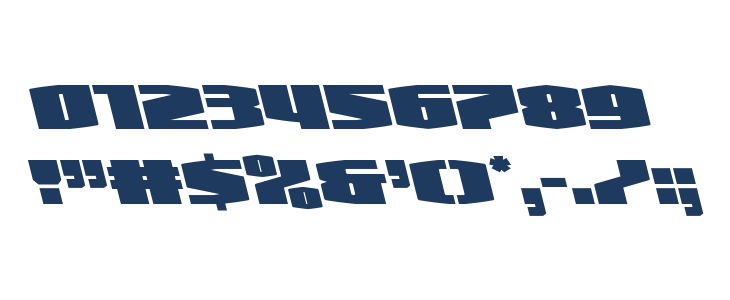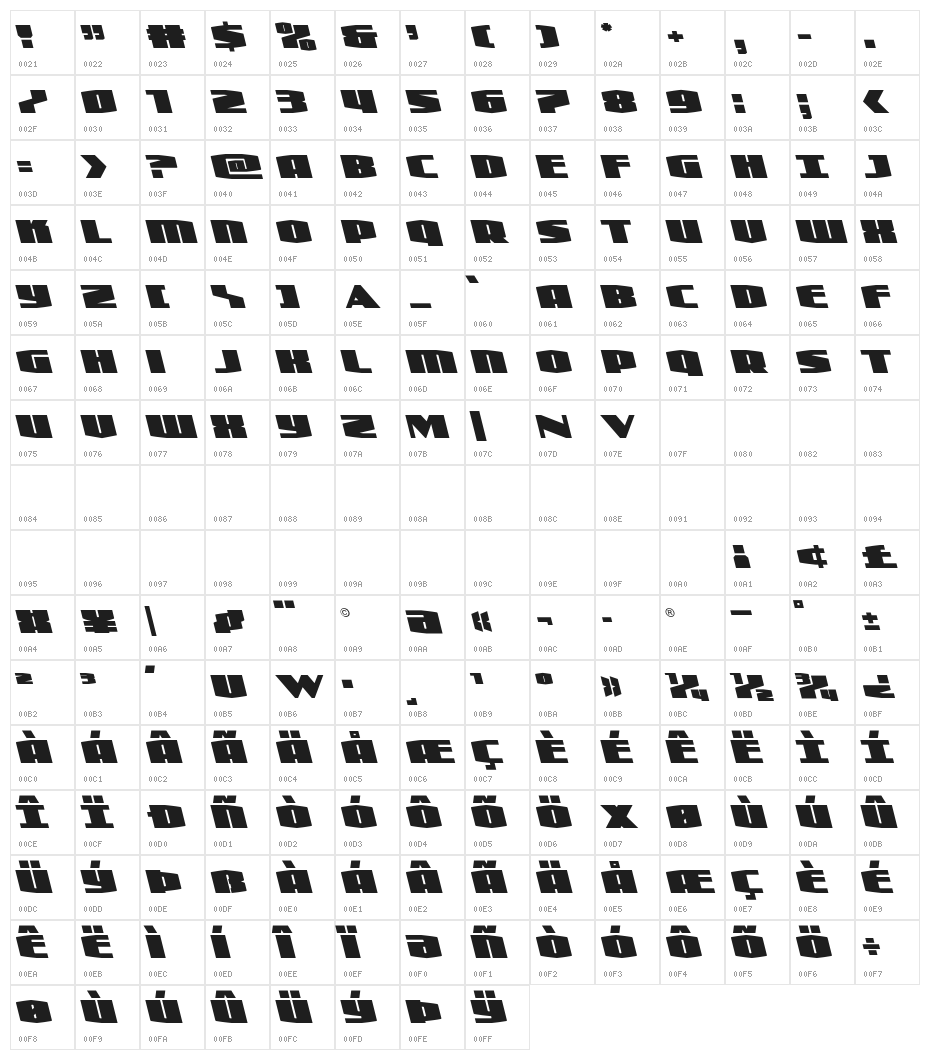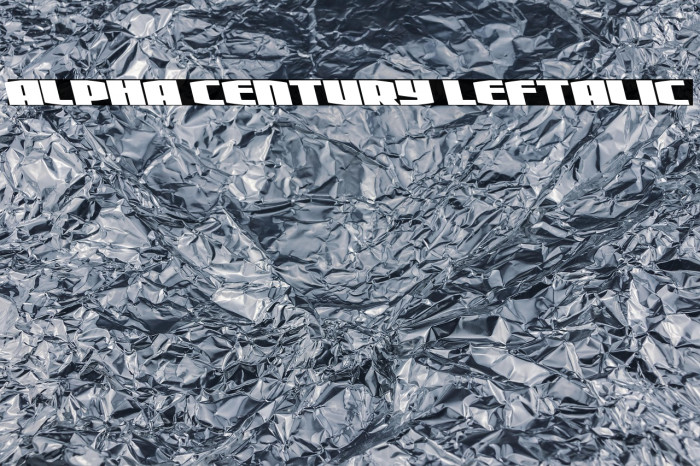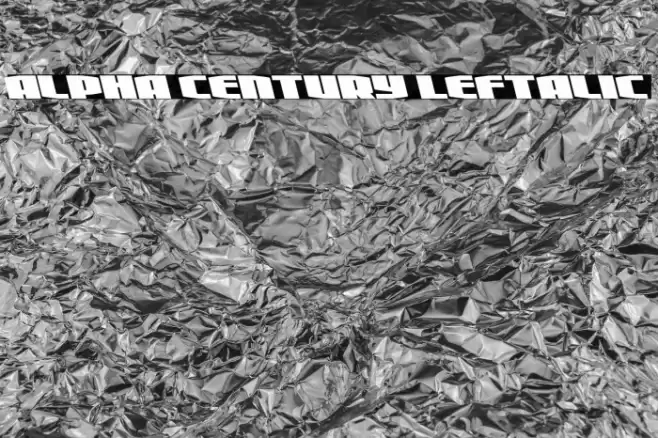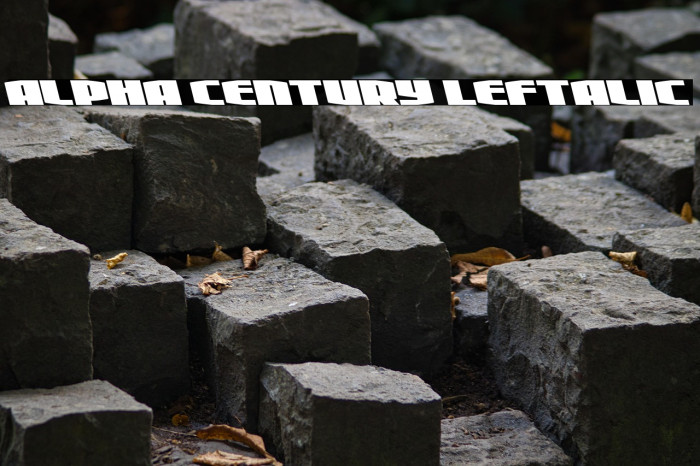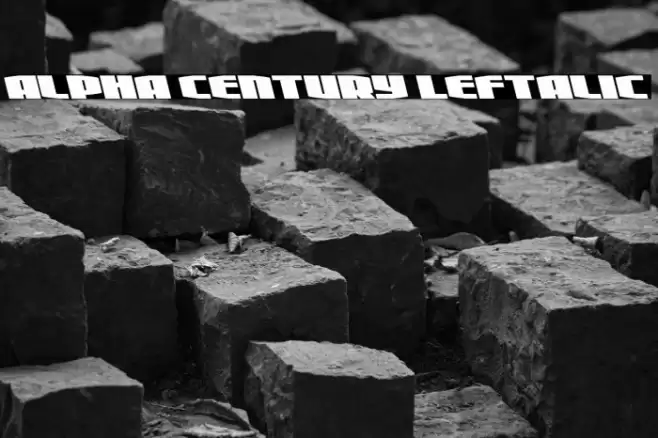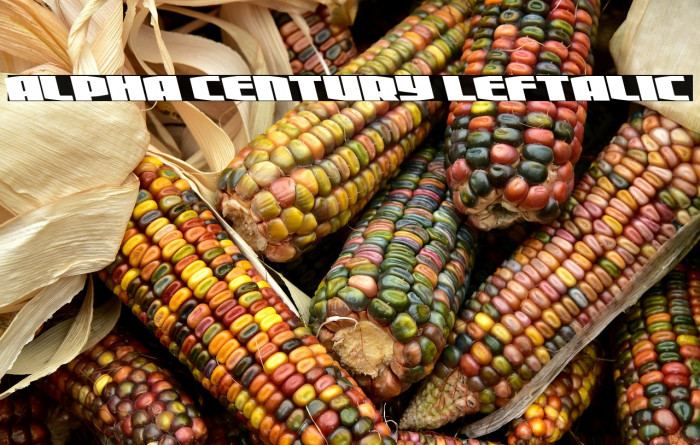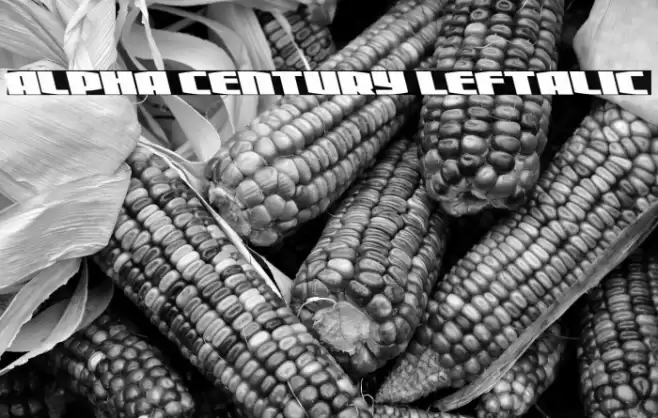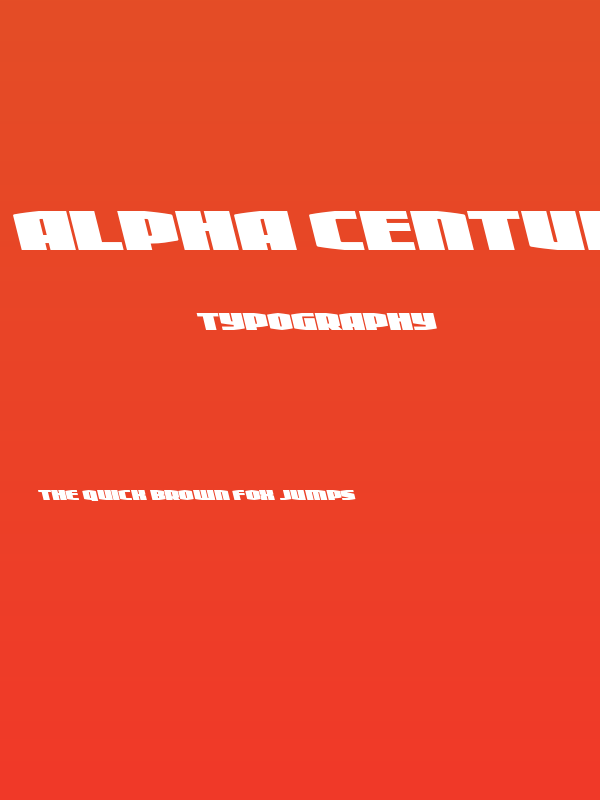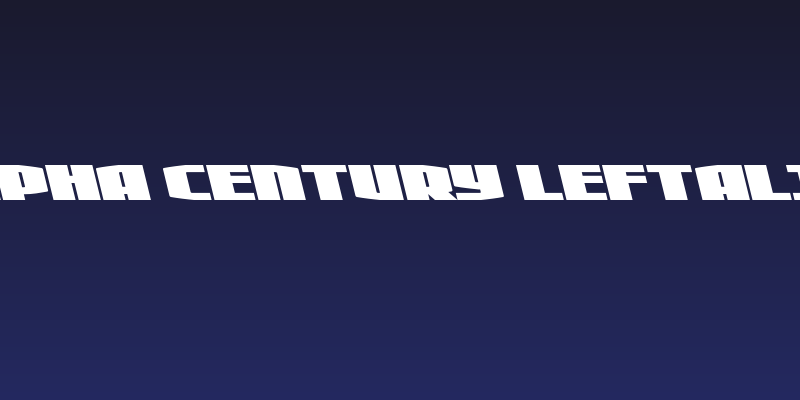
Alpha Century Leftalic Font
Alpha Century Leftalic Description
This font features a bold and angular design with a futuristic aesthetic. The characters are heavily stylized with sharp edges and a distinct slant to the left, giving it a dynamic and forward-moving appearance. The uppercase and lowercase letters maintain a consistent geometric form, while the numbers and special characters follow the same angular theme. The font's unique style makes it stand out, suitable for projects that require a modern and edgy look.
| Overall Style | Futuristic, Modern |
| Proposed Projects | Ideal for sci-fi themed designs, video game titles, posters, and branding that requires a modern edge. |